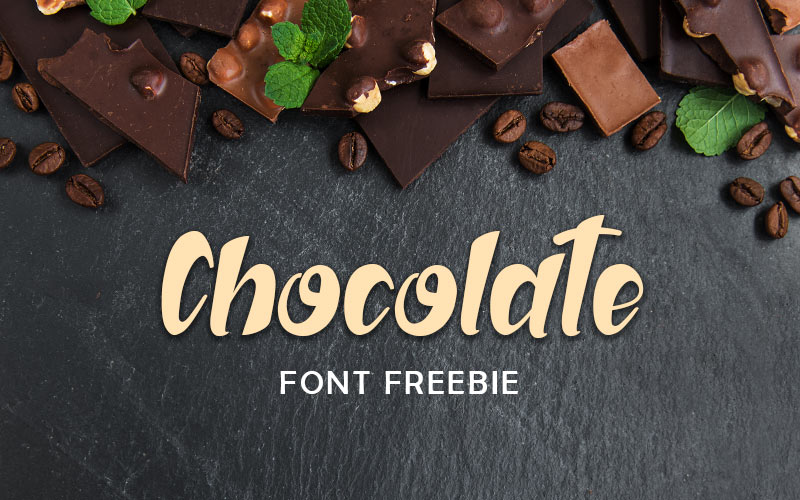
Looking for a sassy, playful script to give your designs a cheerful, nostalgic vibe? Chocolate is a handcrafted handwritten script from “The Chocolate” typeface family — carefully selected to add personality to everything from social posts to print invites.
About Chocolate Font
- Handwritten script with a friendly, retro feel
- Ideal for branding, social media graphics, banners, thumbnails, cards & invitations
- Works well as a display or headline font and pairs nicely with clean sans-serifs for body text
- Chocolate Font (The Chocolate typeface — handwritten script)
Suggested uses
- Social media posts & thumbnails
- Event invitations & greeting cards
- Posters, flyers, and banners
- Logos and packaging (for display use)
- Print and digital multipurpose design work